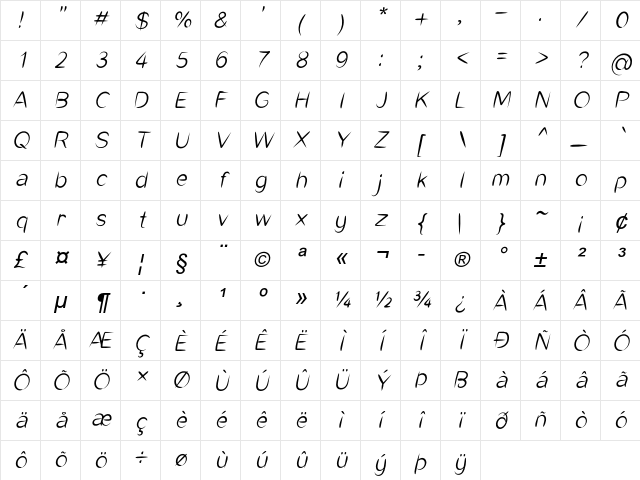
Tybiria Italic
Tybiria Family
Tybiria Italic
Design Context for Tybiria
Tybiria is a composed and adaptable typeface that performs quietly and consistently across a wide range of design contexts. The slanted form adds forward momentum and visual energy.
Pro Tip: Use Tybiria for emphasis, pull quotes, and subheadings where its slanted energy can add rhythm to the layout.